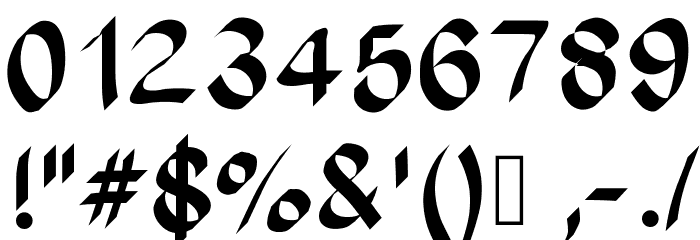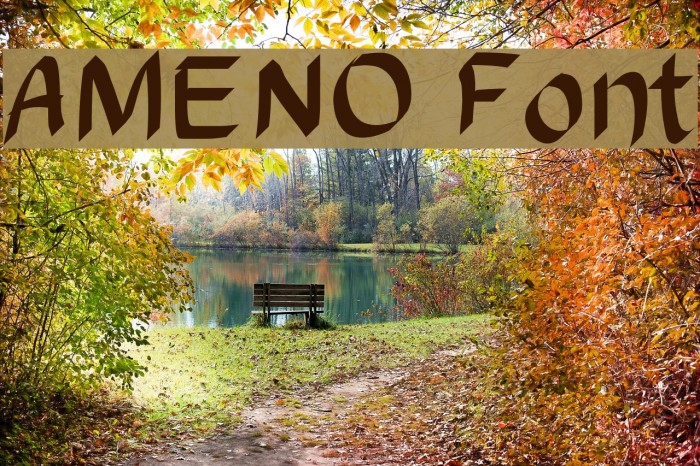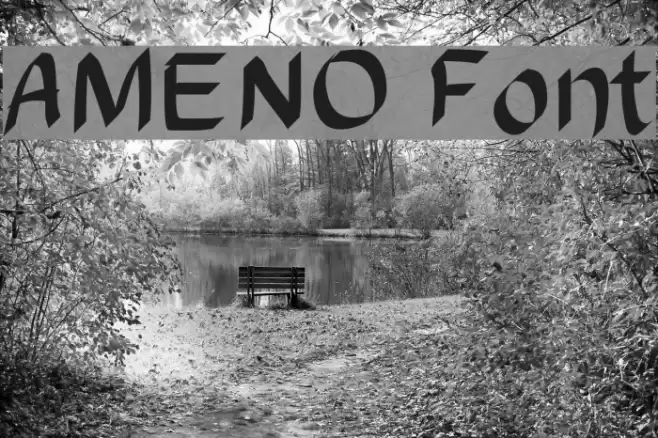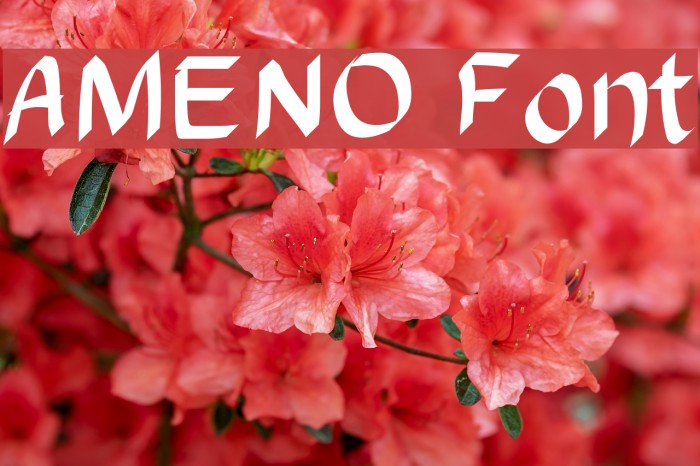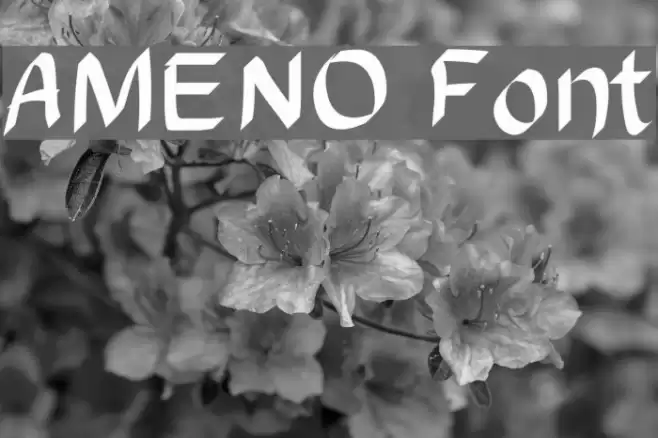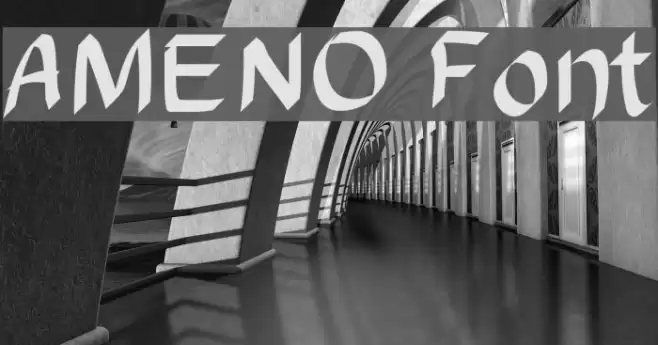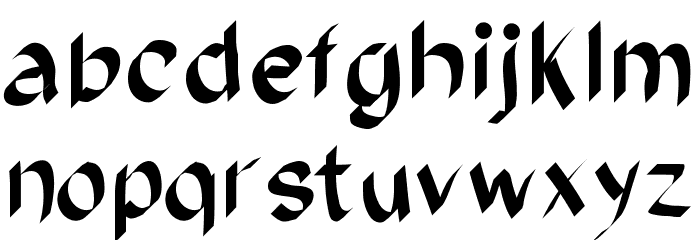
AMENO Font
This font exhibits a bold and dynamic style with sharp, angular strokes and a distinct calligraphic influence. The uppercase letters are particularly striking, with a strong presence and a sense of movement. The lowercase letters maintain this energy while offering a slightly more subdued appearance. The numerals are consistent with the overall style, featuring the same angular and bold characteristics. Special characters are well-integrated, ensuring a cohesive look across all glyphs. This font's unique design makes it stand out, offering a modern twist on traditional calligraphy.